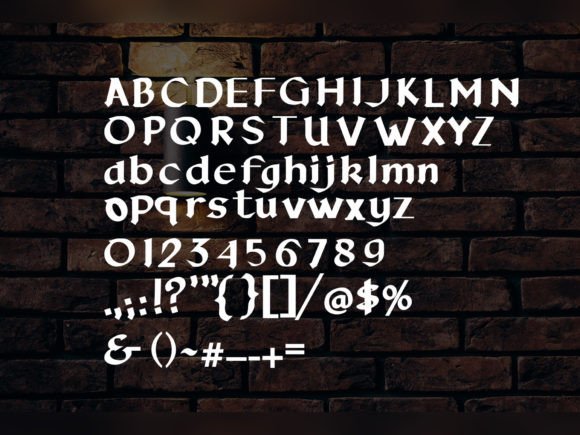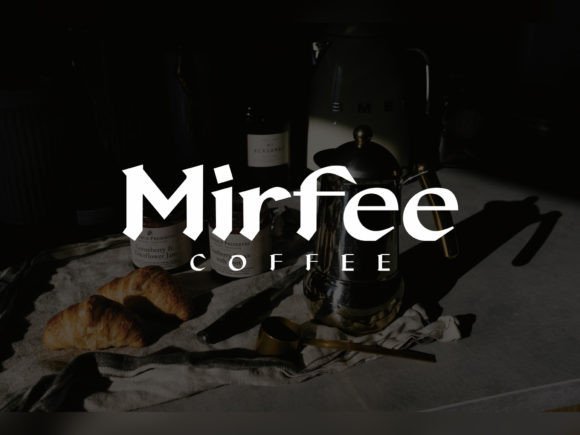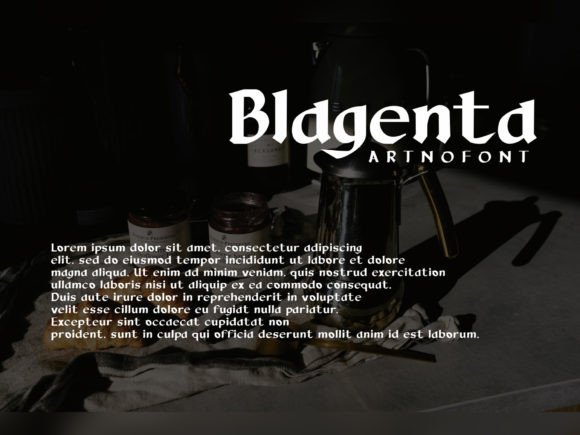
Blagenta Font
BLAGENTA FONT SPECIMEN
Blagenta is a simple and elegant slab serif font perfect for logo designs, magazines, social media, brochures, and many more.